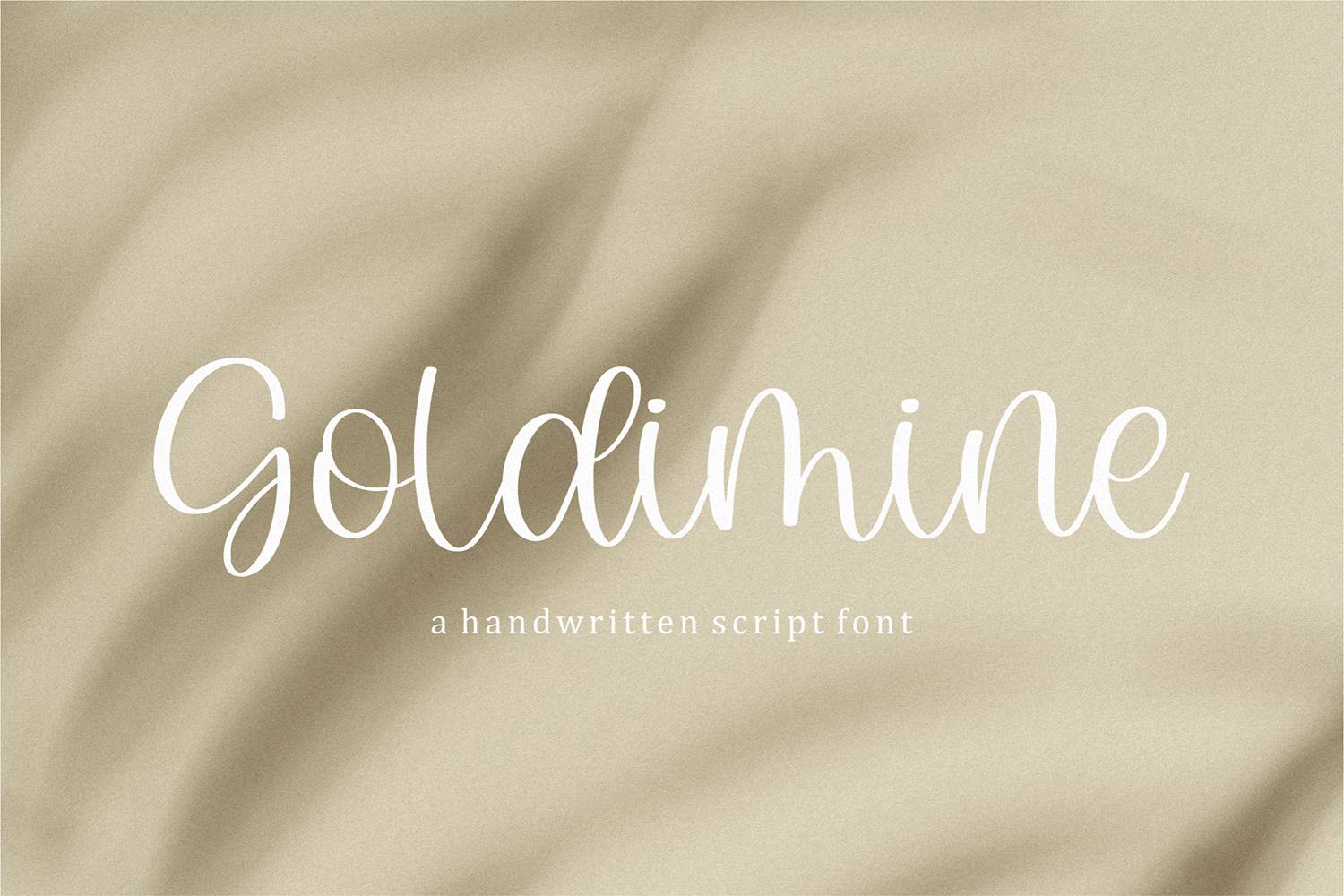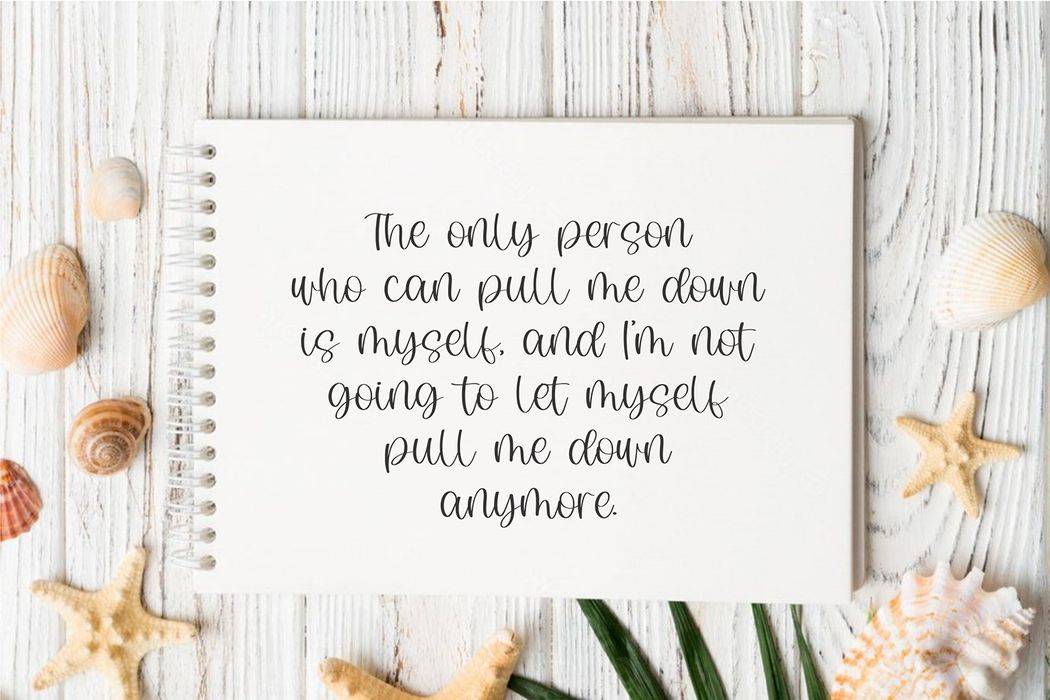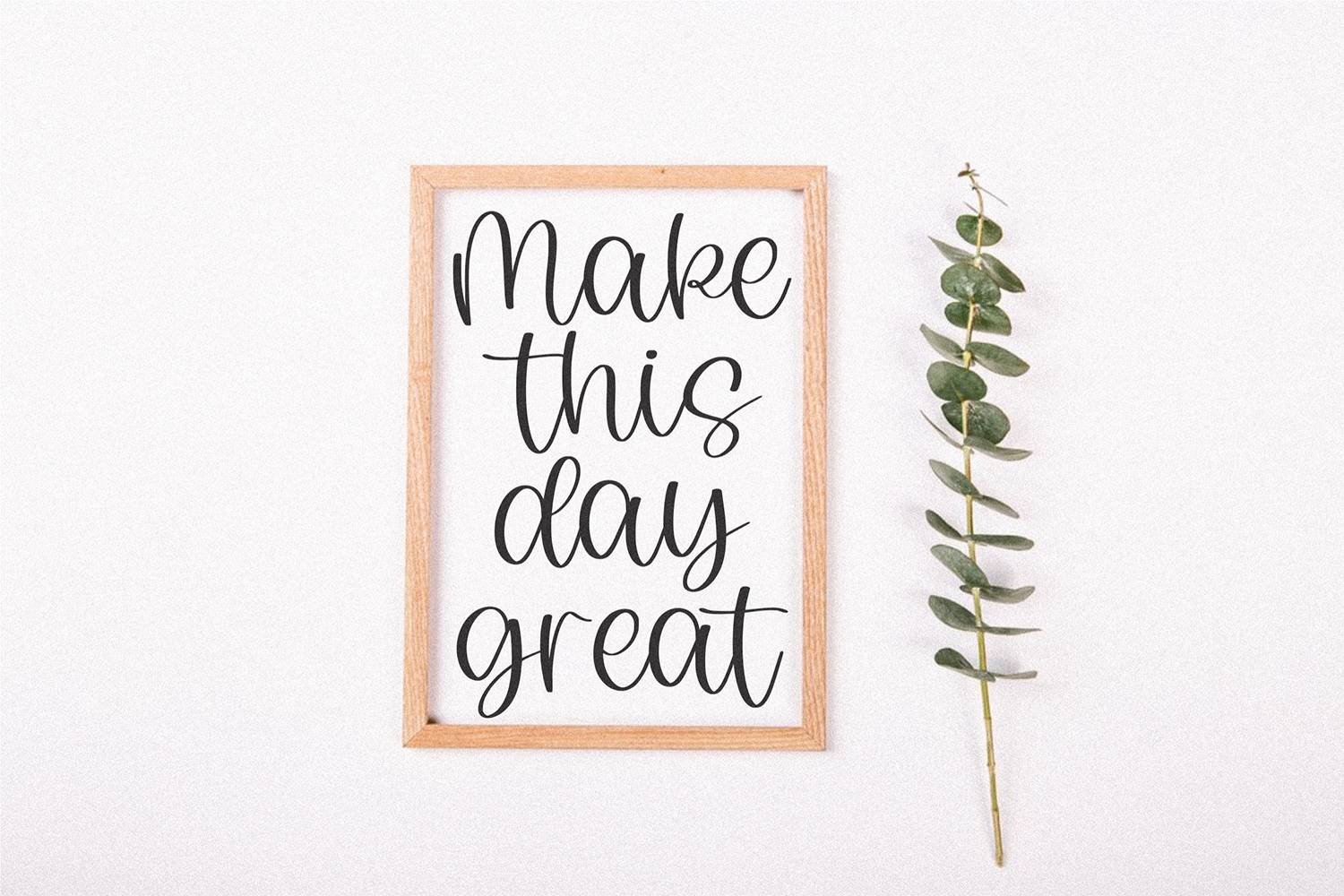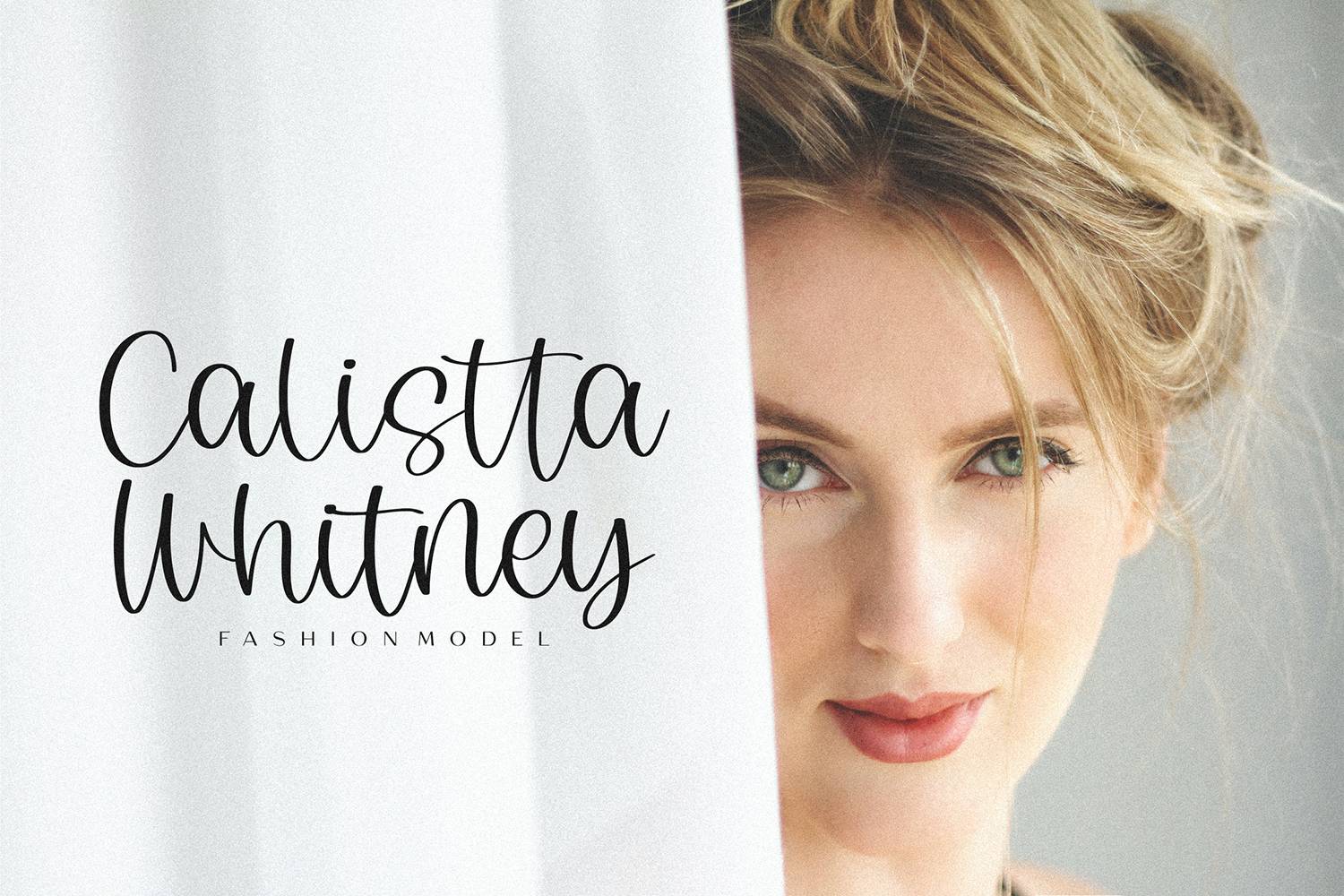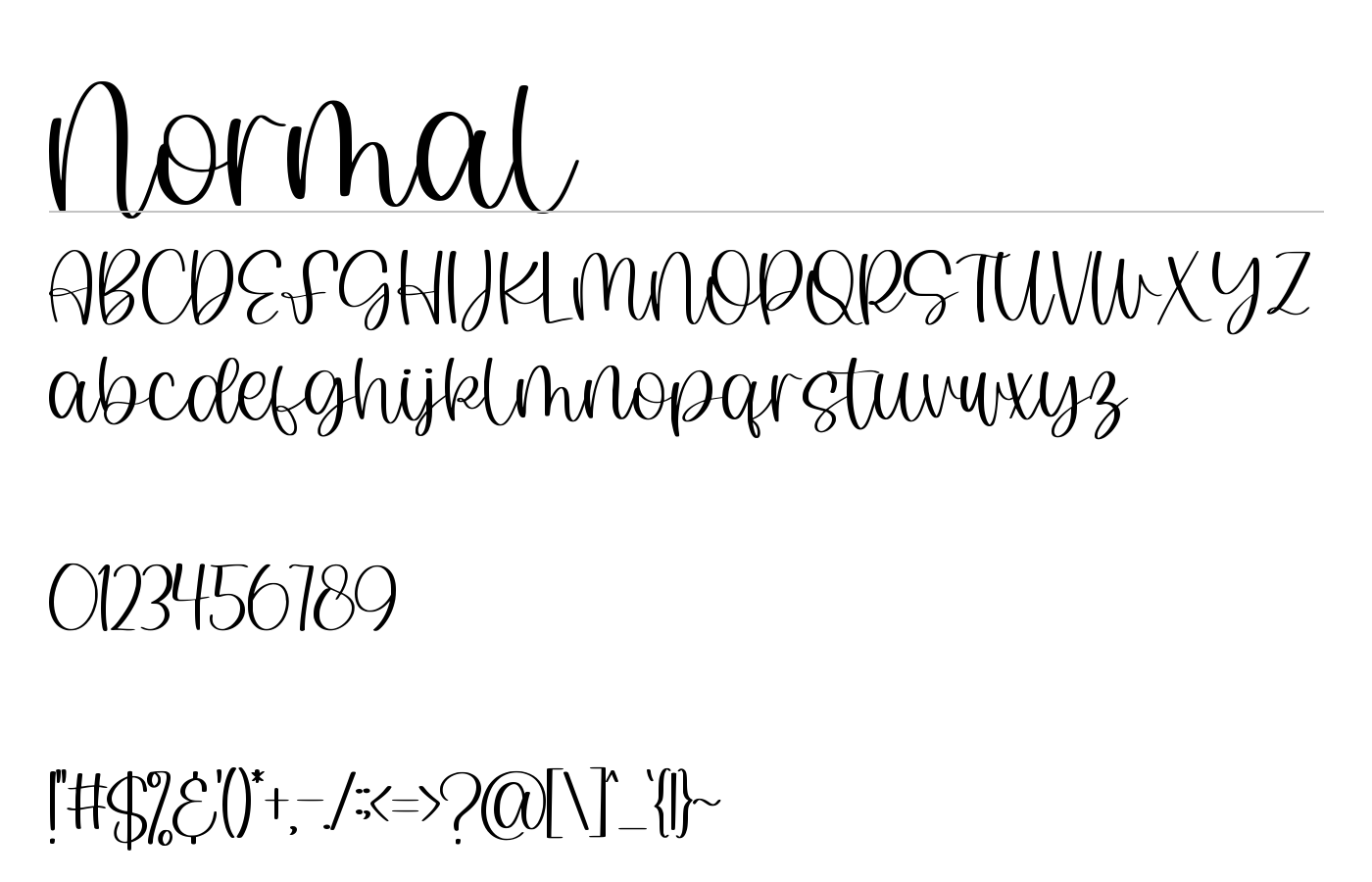
Goldimine is a delicate, handwritten script font with a slender, elegant style that features both uppercase and lowercase letters with fluid, playful curves. Its light weight and tall x-height give it an airy and refined look, perfect for adding a personal, charming touch to invitations, branding, and creative projects that seek a friendly yet sophisticated vibe. This font works beautifully in designs that need a graceful and approachable feel without sacrificing readability.
Goldimine Font